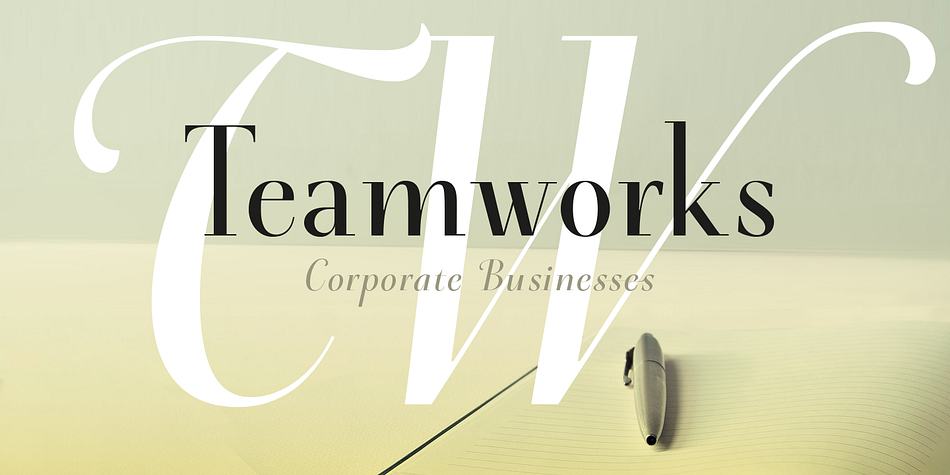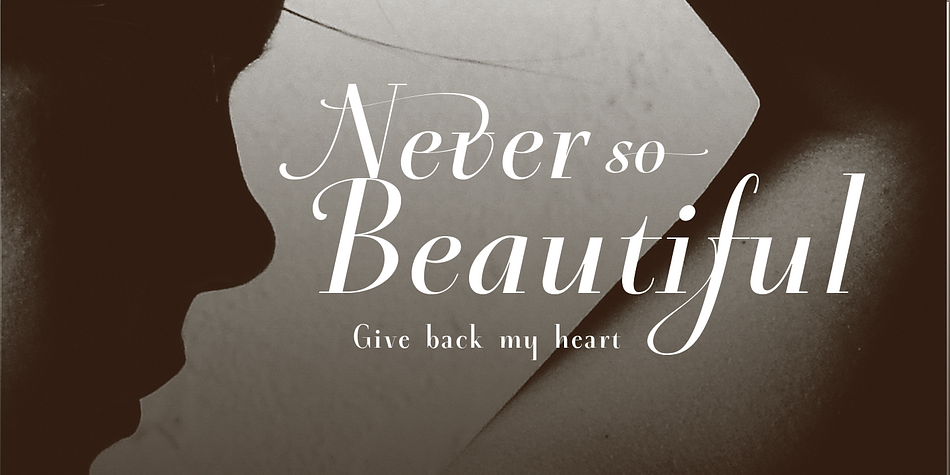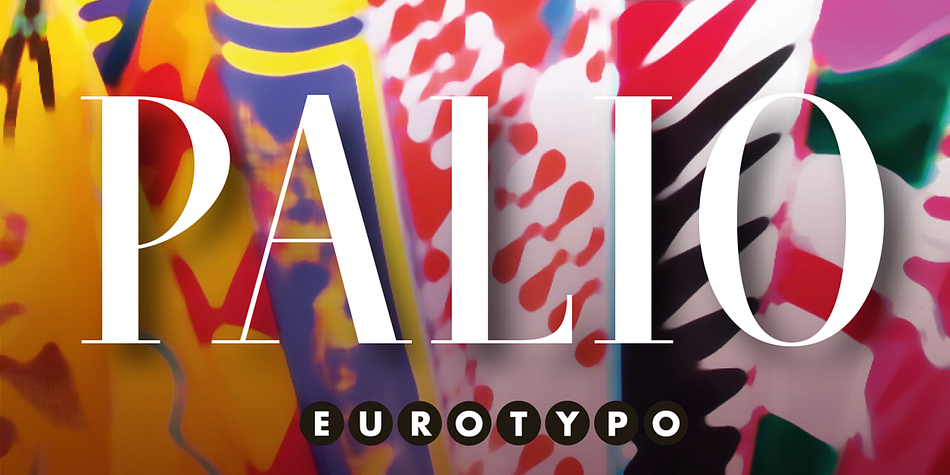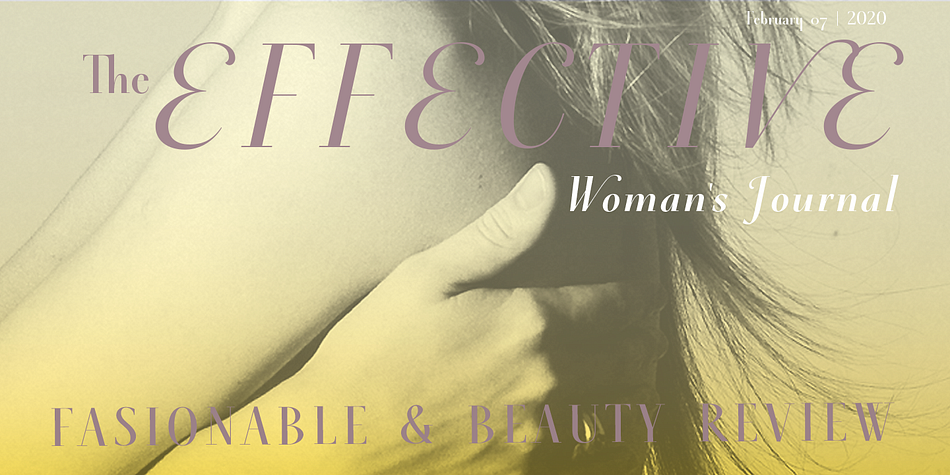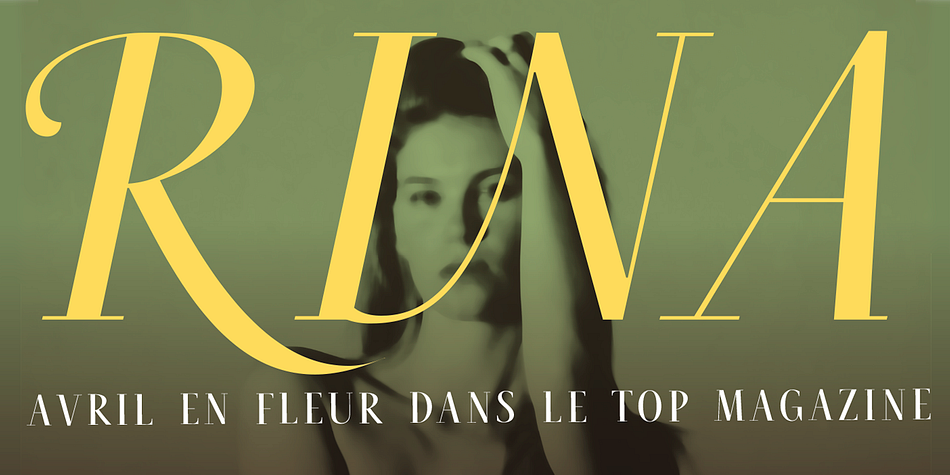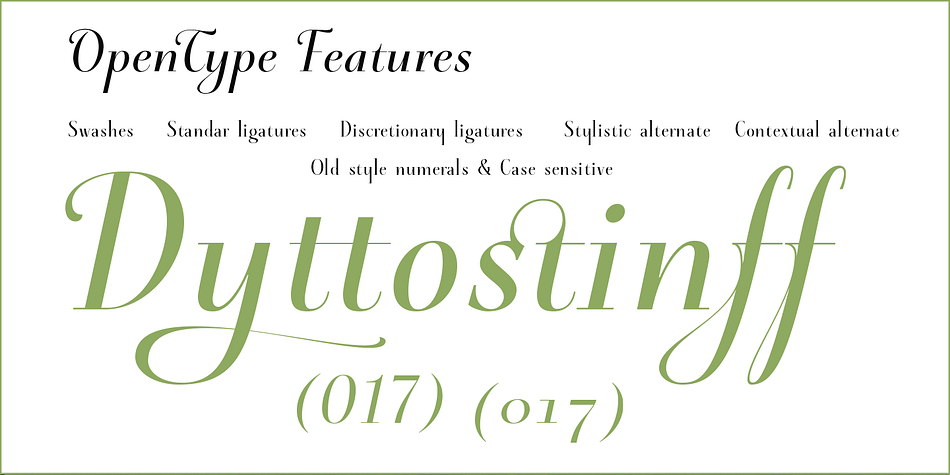
Designed by Olcar Alcaide, Palio is a serif font family. This typeface has four styles and was published by Eurotypo.
Palio is a family of fonts derived from the classic Didona, its capitals are slightly condensed and the lower case definitively abandon the reminiscent of the baroque endings strokes, which are still endure in many typefaces.
It is an elegant font especially the slant version that actually is a truly italic.
This version very readable and is enriched with a series of alternative variables and swashes that make it more expressive for certain projects that need some flowering.